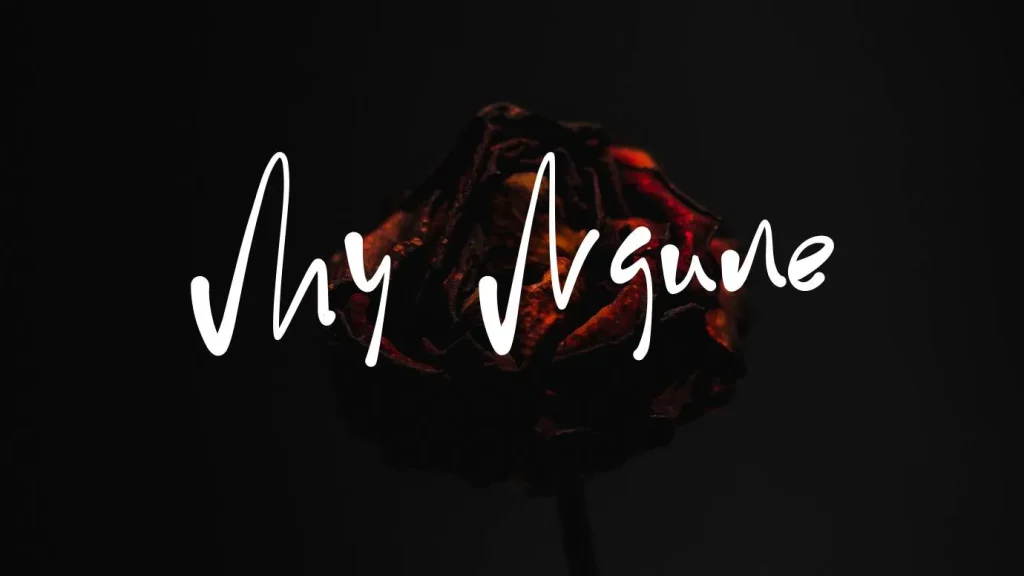
Twin Rizki created a nice and elegant script design. My Ngune Font was utilized in numerous web applications.
My Ngune Font
Who designed My Ngune Font?
Twin Rizki created a nice and elegant script design. This font was utilized in numerous web applications.
What type of font is My Ngune?
A single regular weight of this script typeface is a basic and clean style. The use of a wide range of font styles can be seen on several platforms.